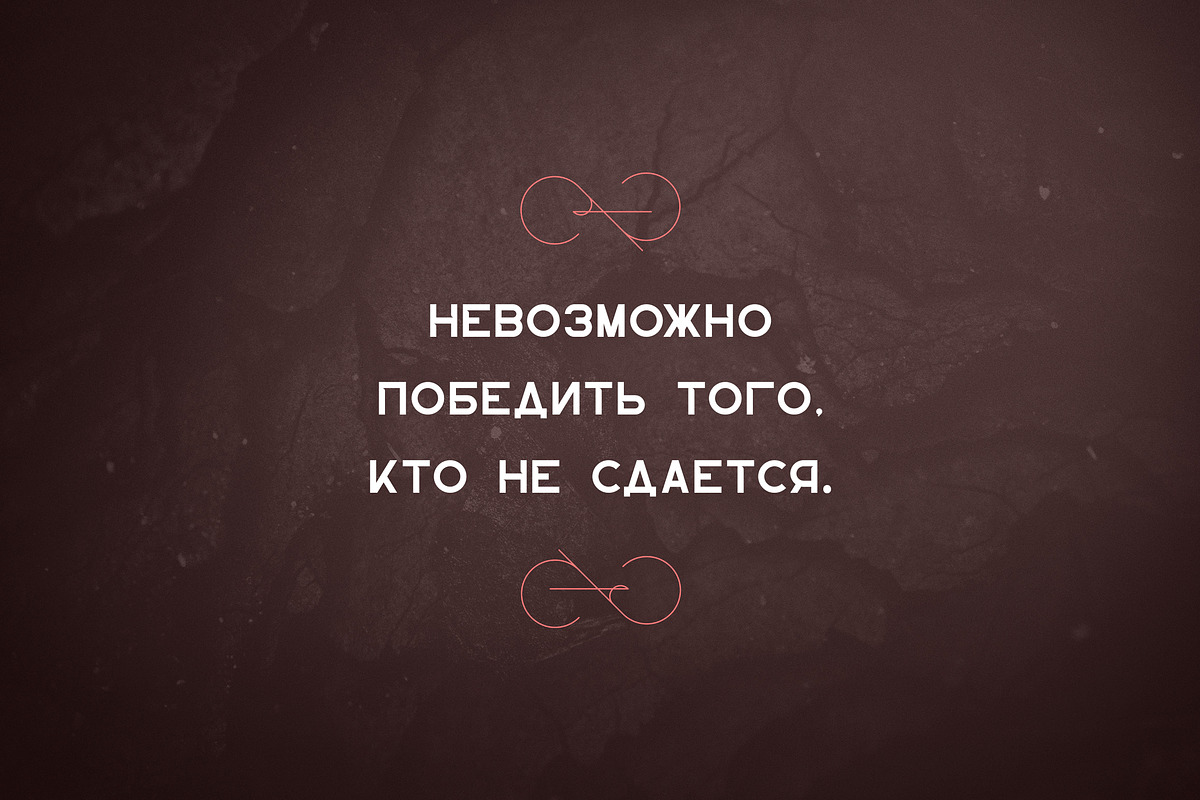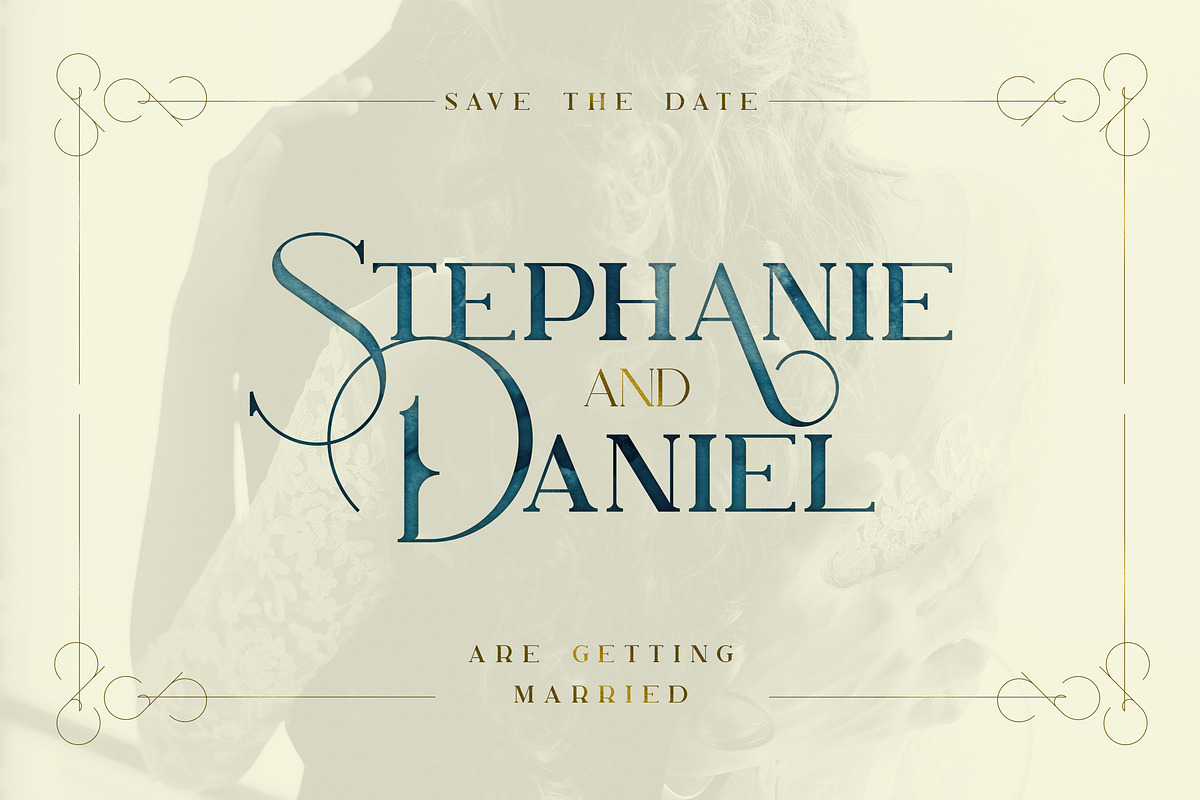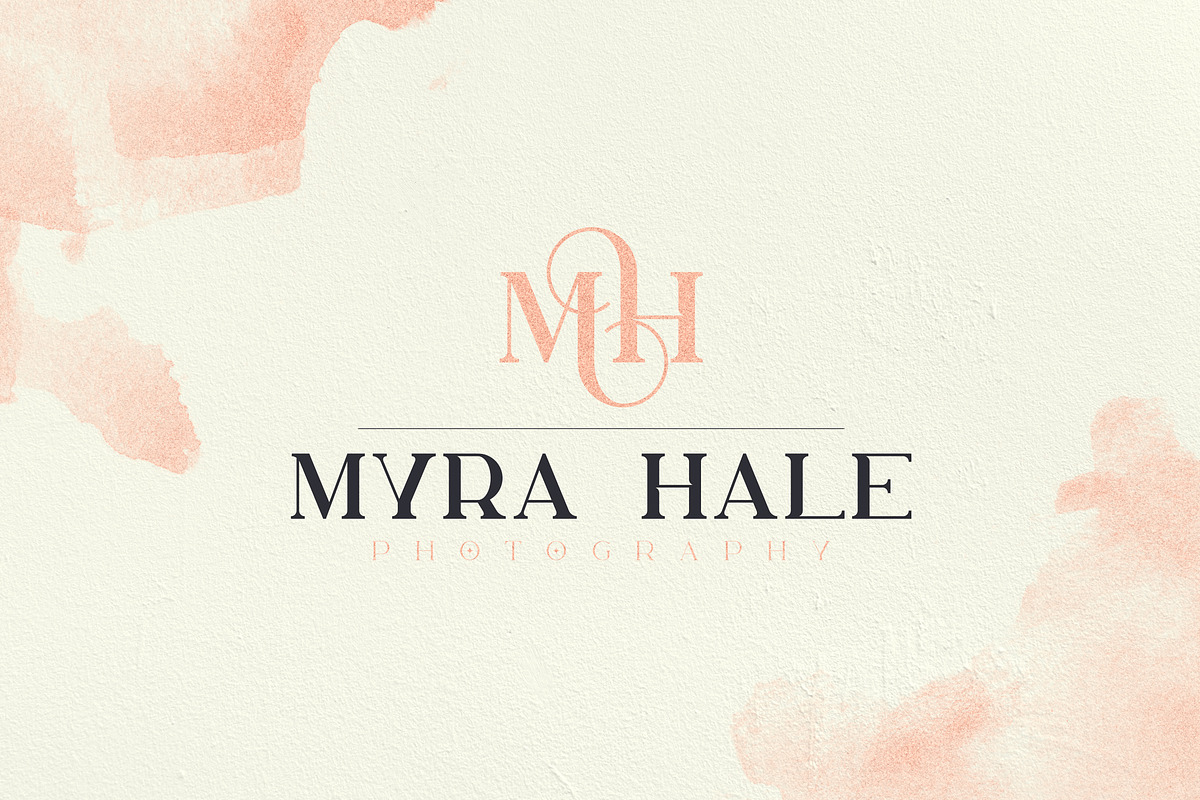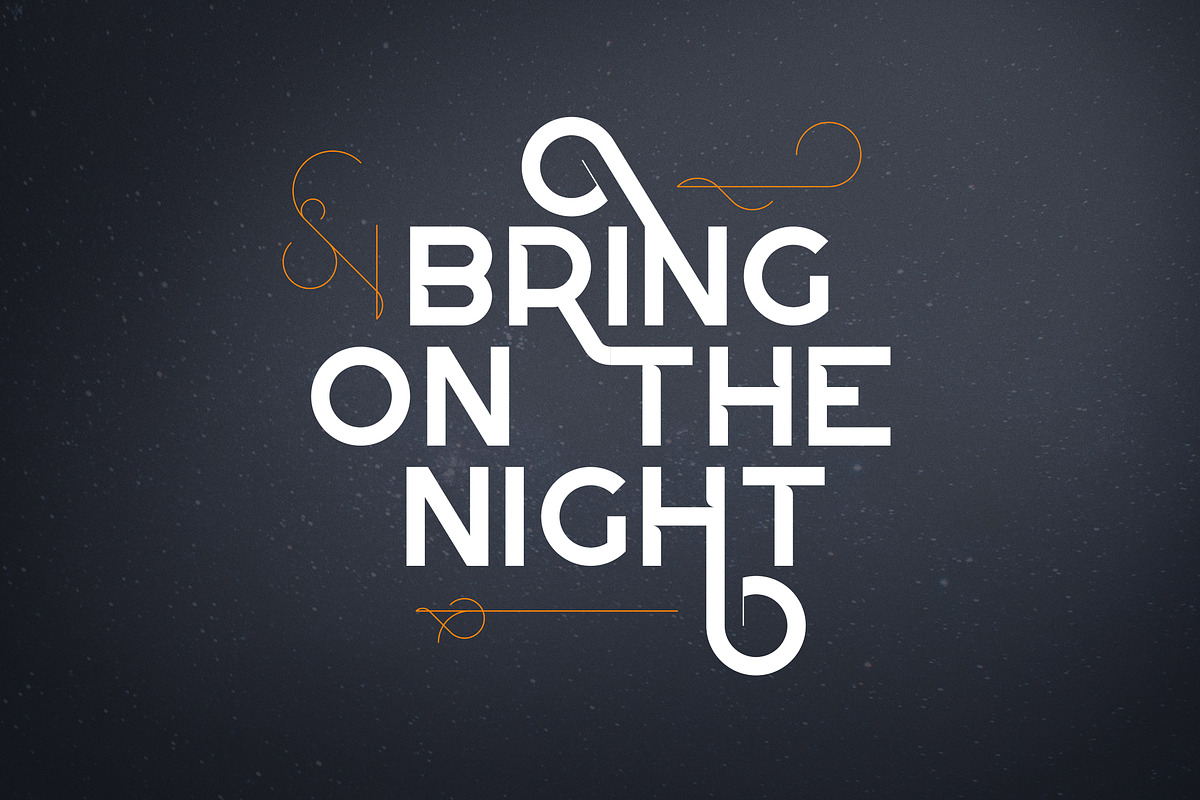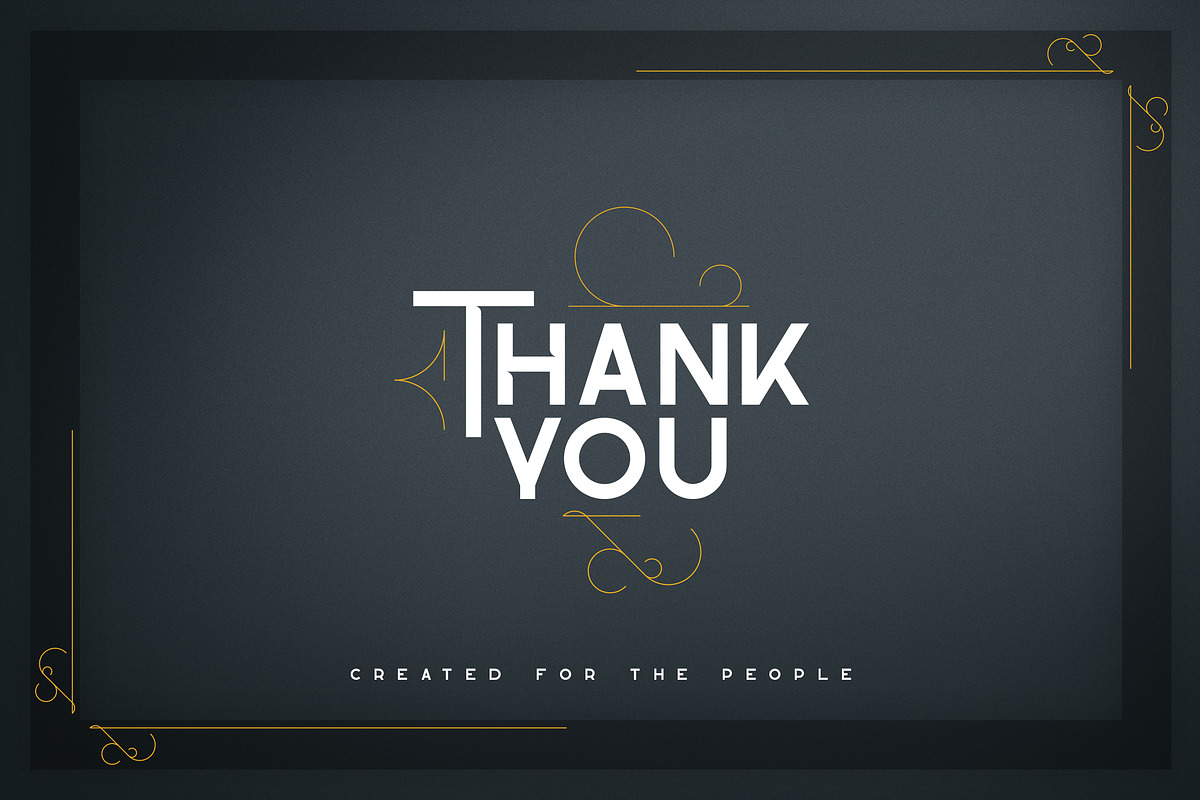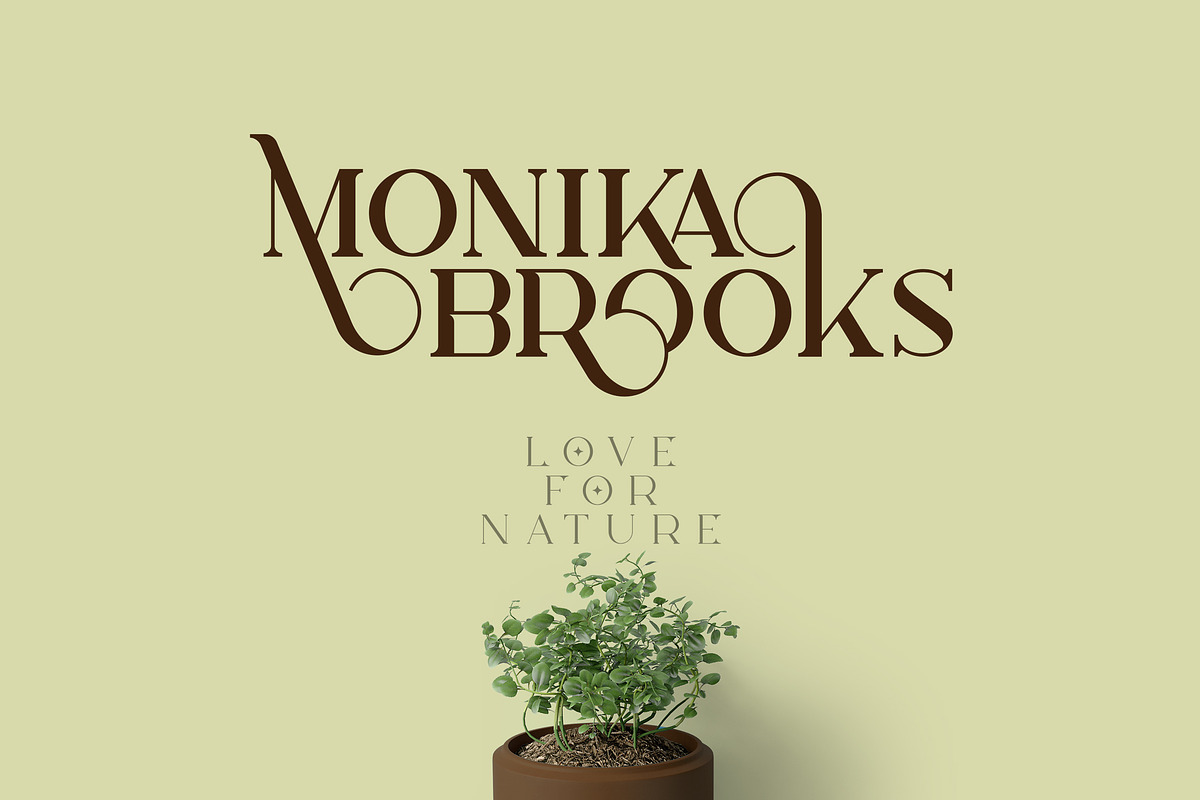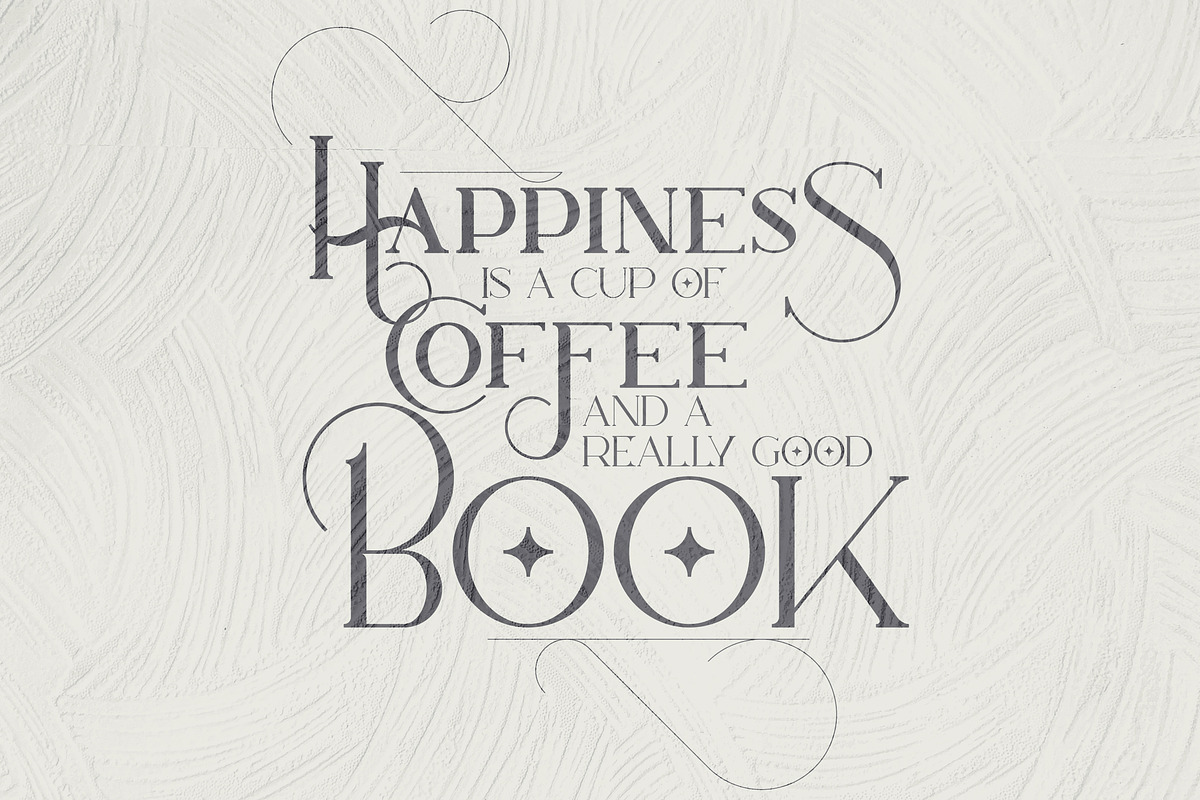
Lotus Eater - Vintage Family
Introducing Lotus Eater - Vintage Family
Lotus Eater is bold, clean family with latin and Cyrillic support, loaded with alternate glyphs. It's a very versatile font that works great in large and small sizes.
Lotus Eater is perfect for branding projects, home-ware designs, product packaging, magazine headers - or simply as a stylish text overlay to any background image.
- Serif
- Sans Serif
- Uppercase,lowercase, numeral,punctuation & Symbol
- (Lotus Eater Sans )Cyrillic support - Russian, Ukrainian, Bulgarian and more
- Alternate glyphs
- Ornaments